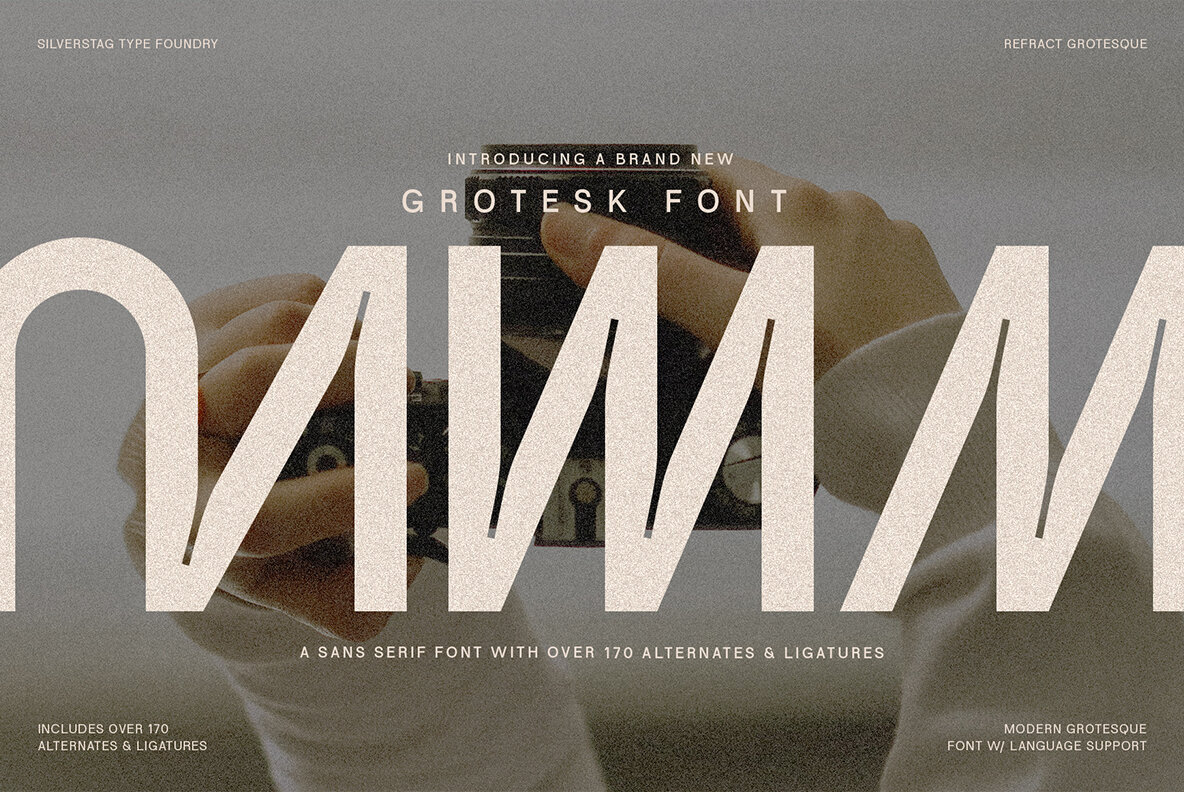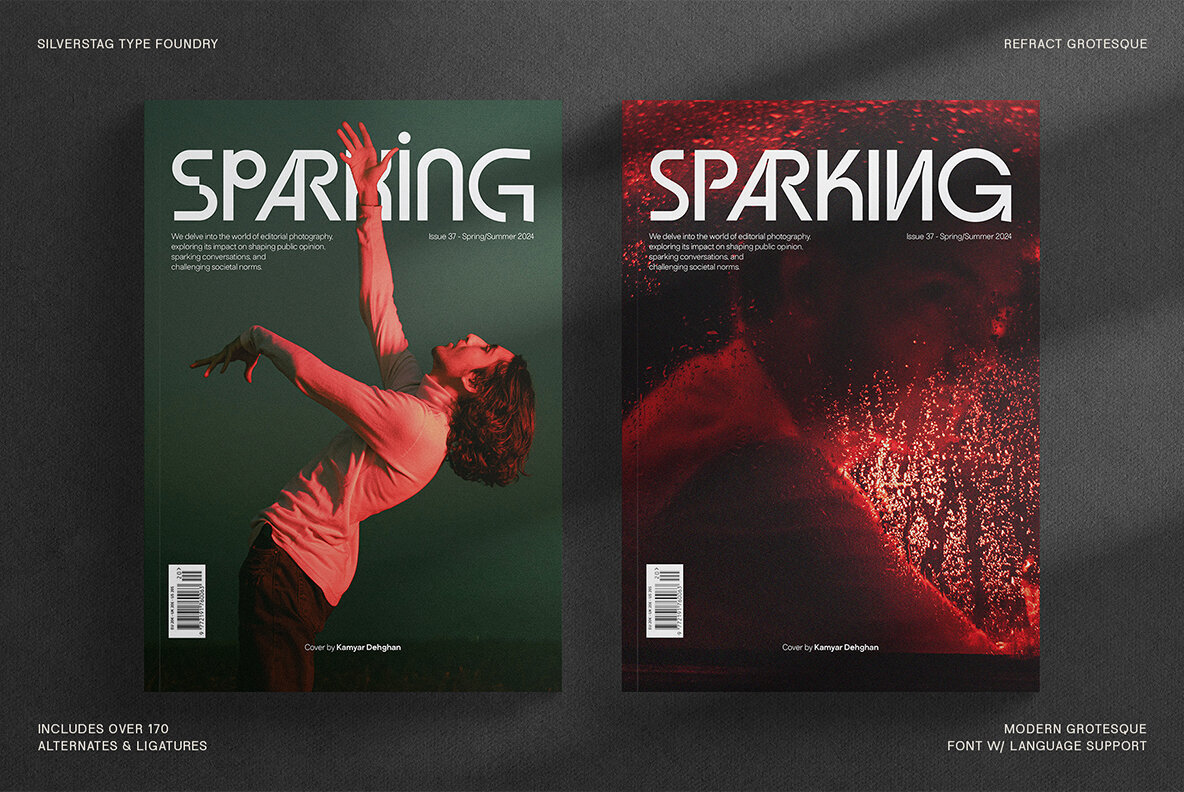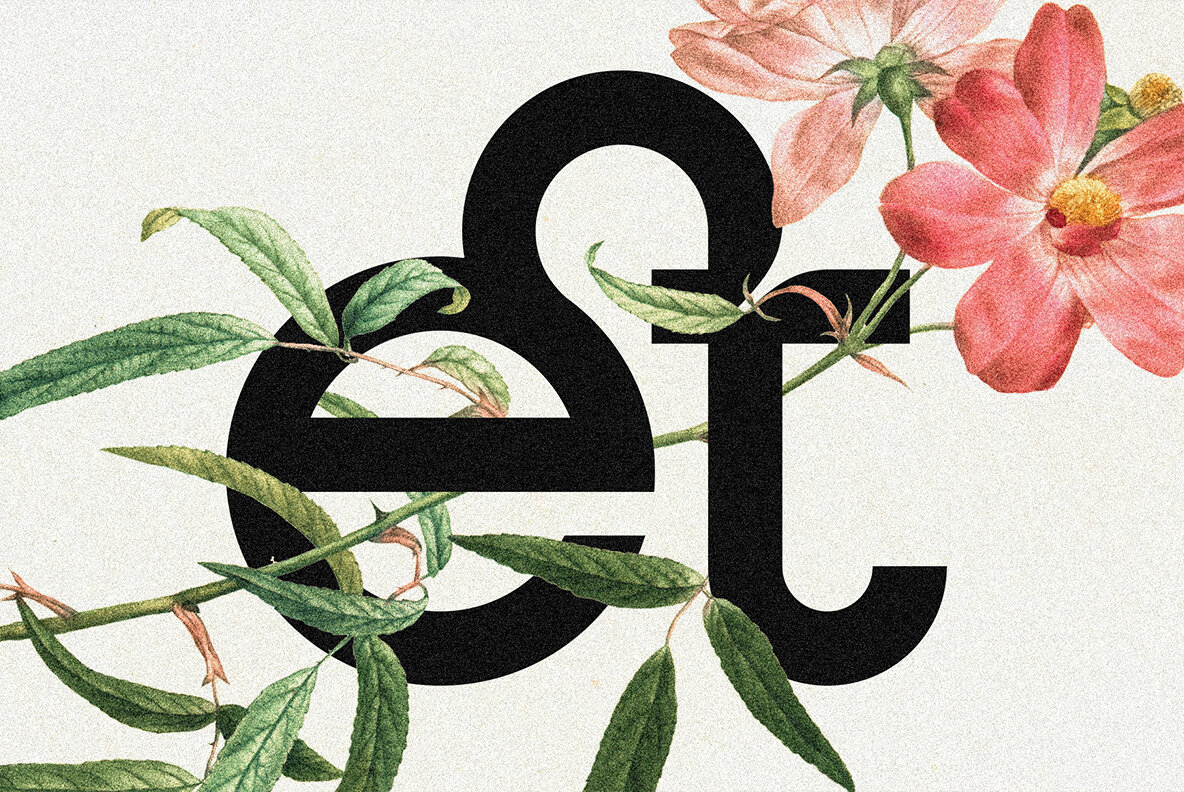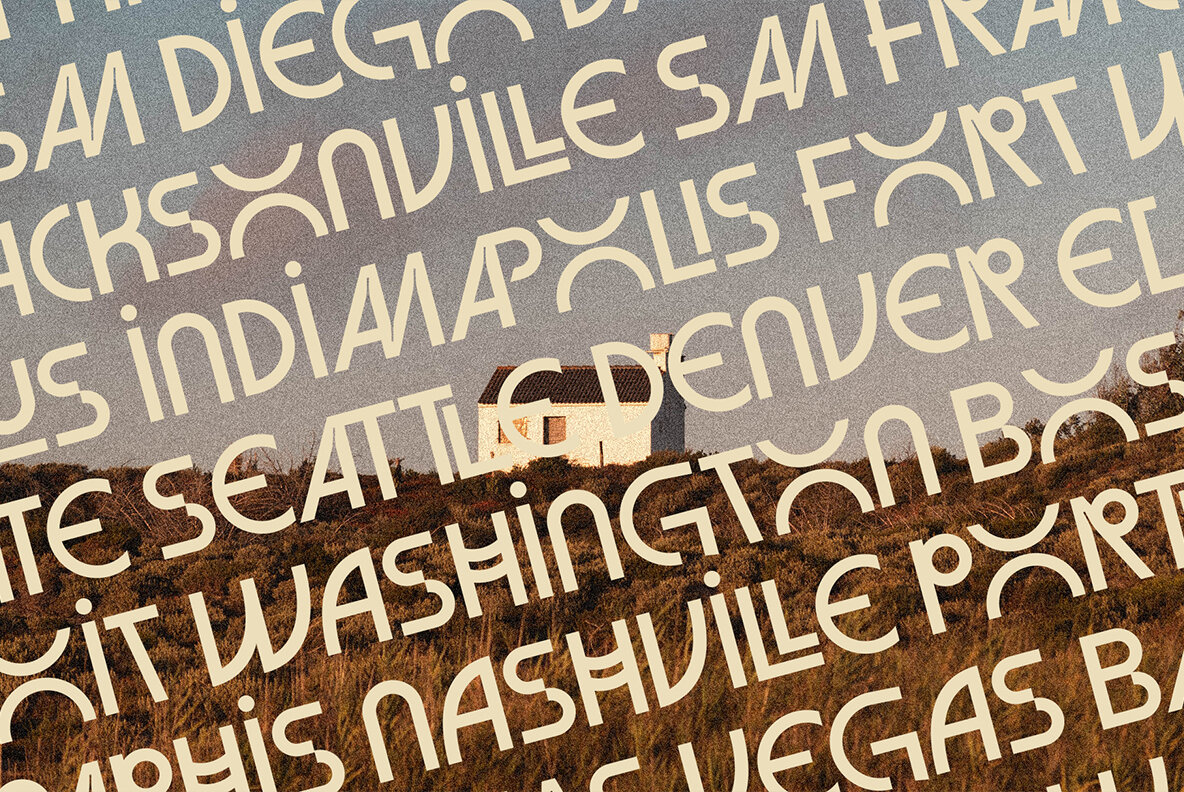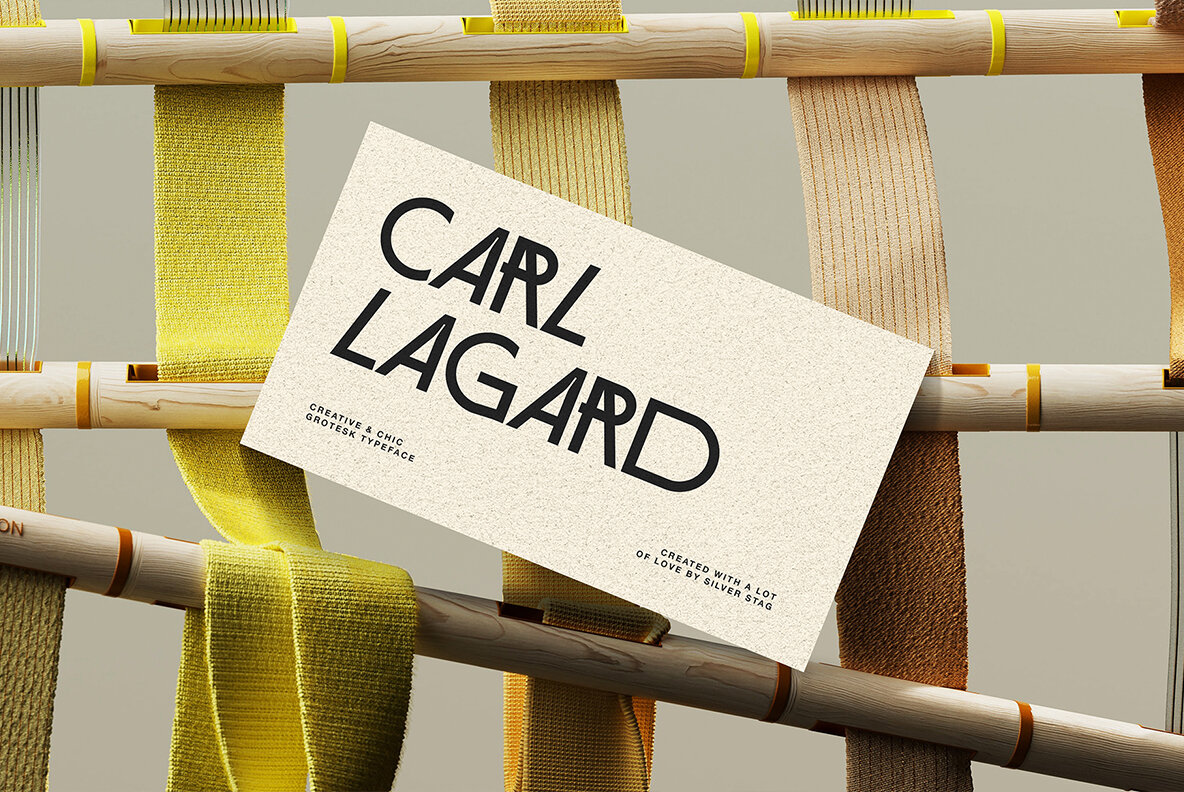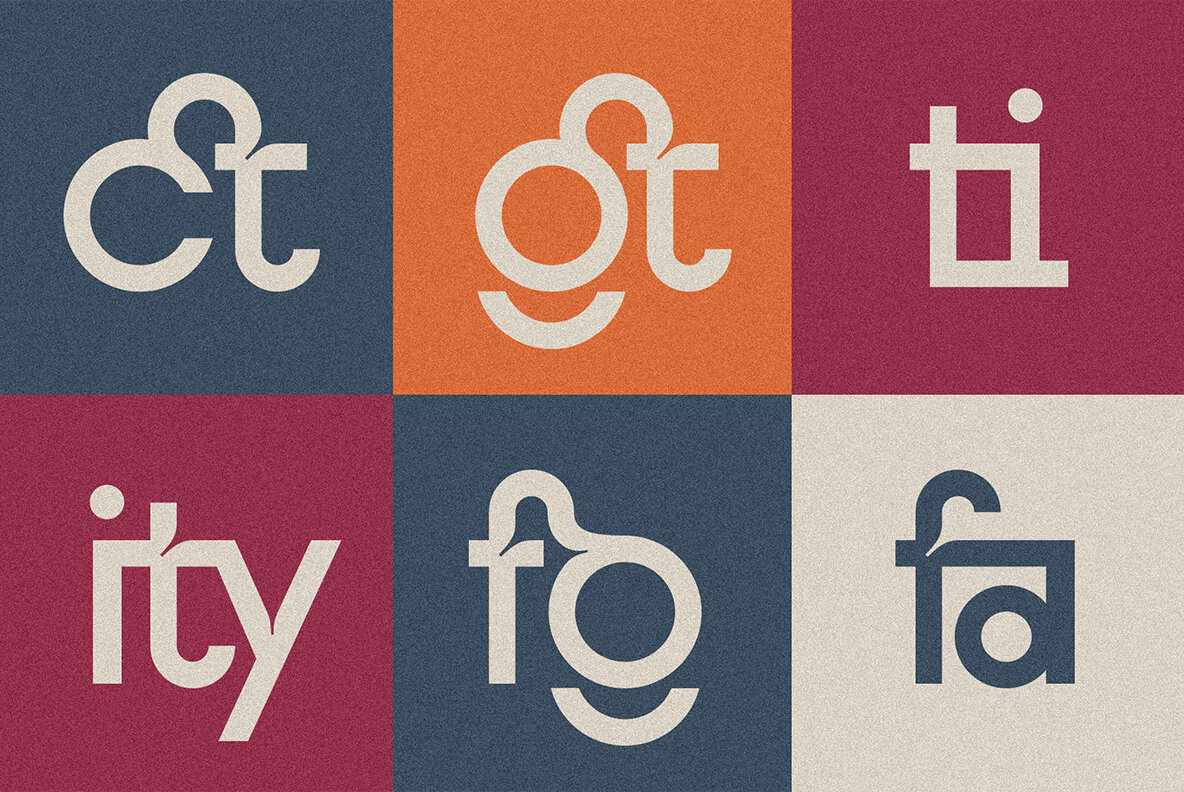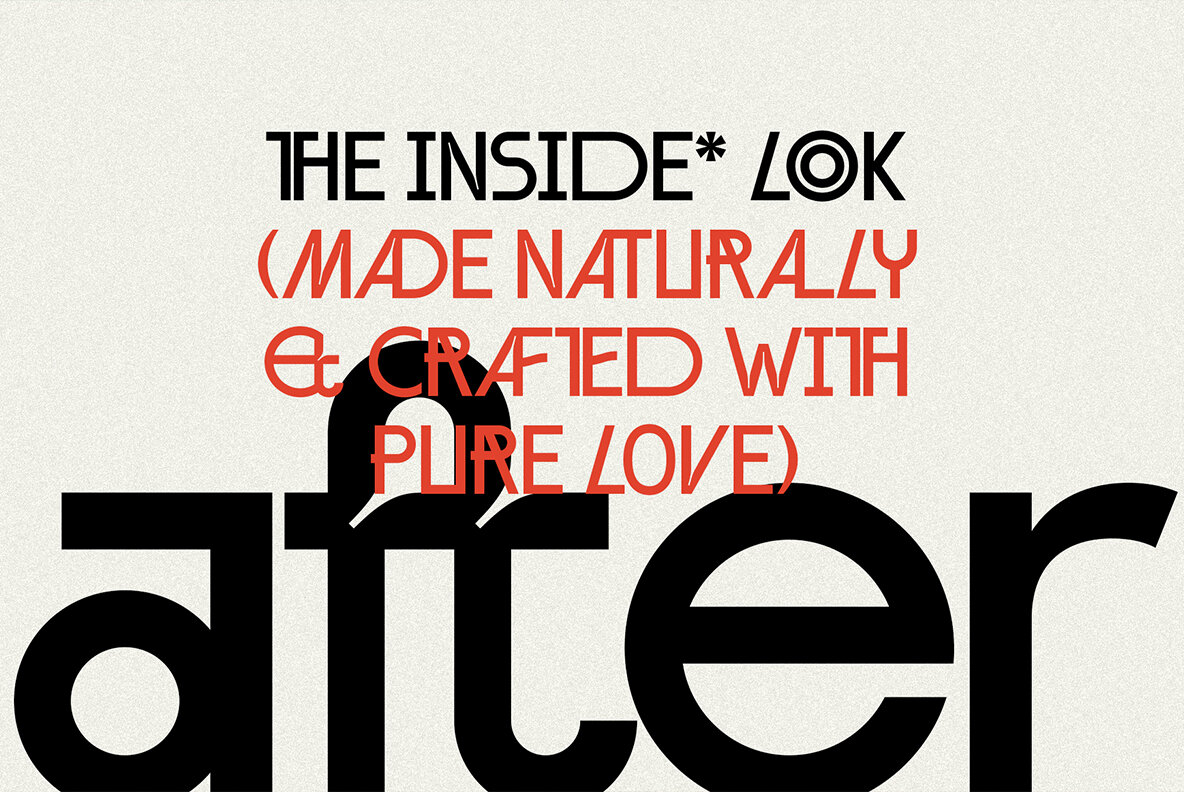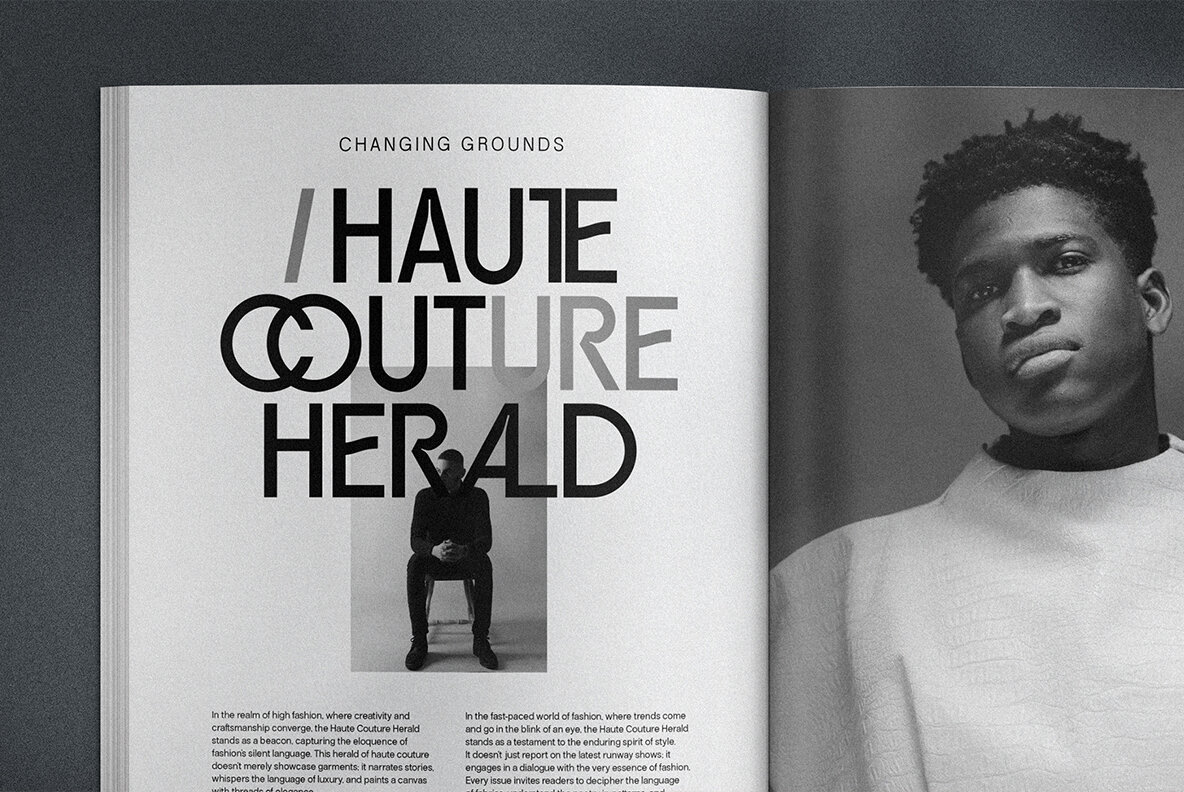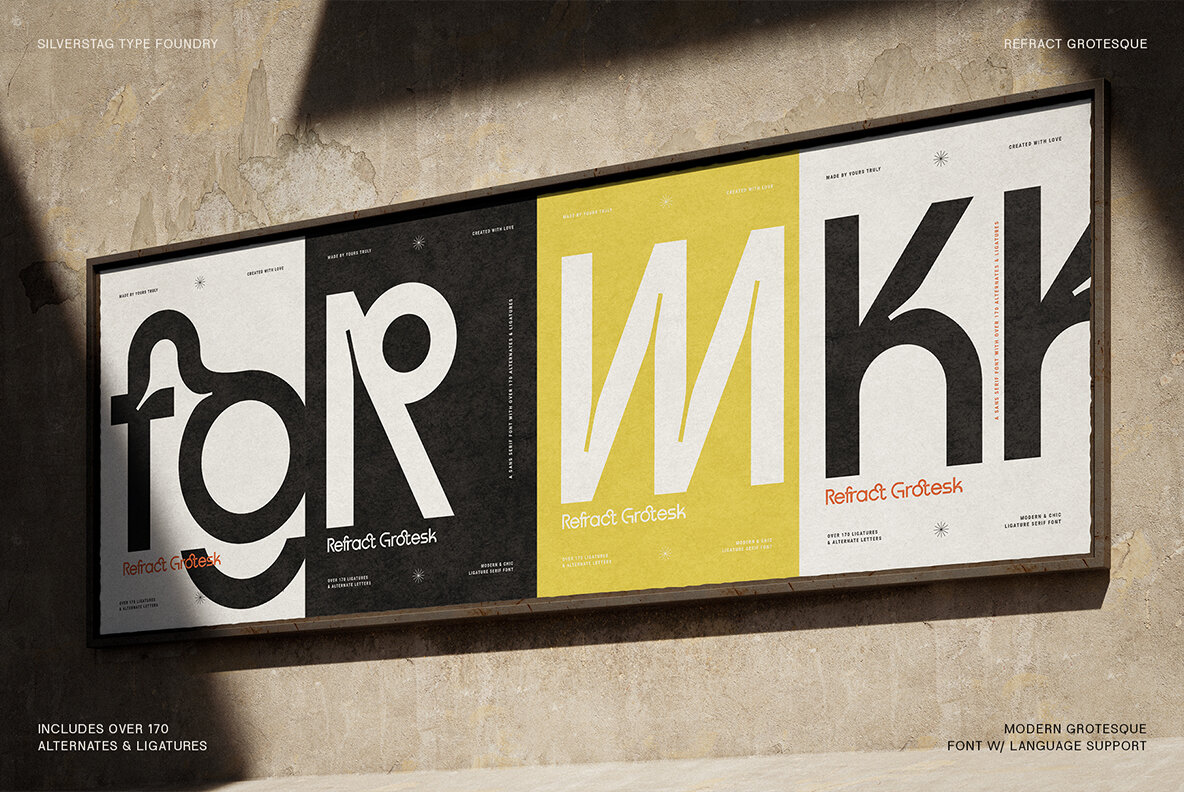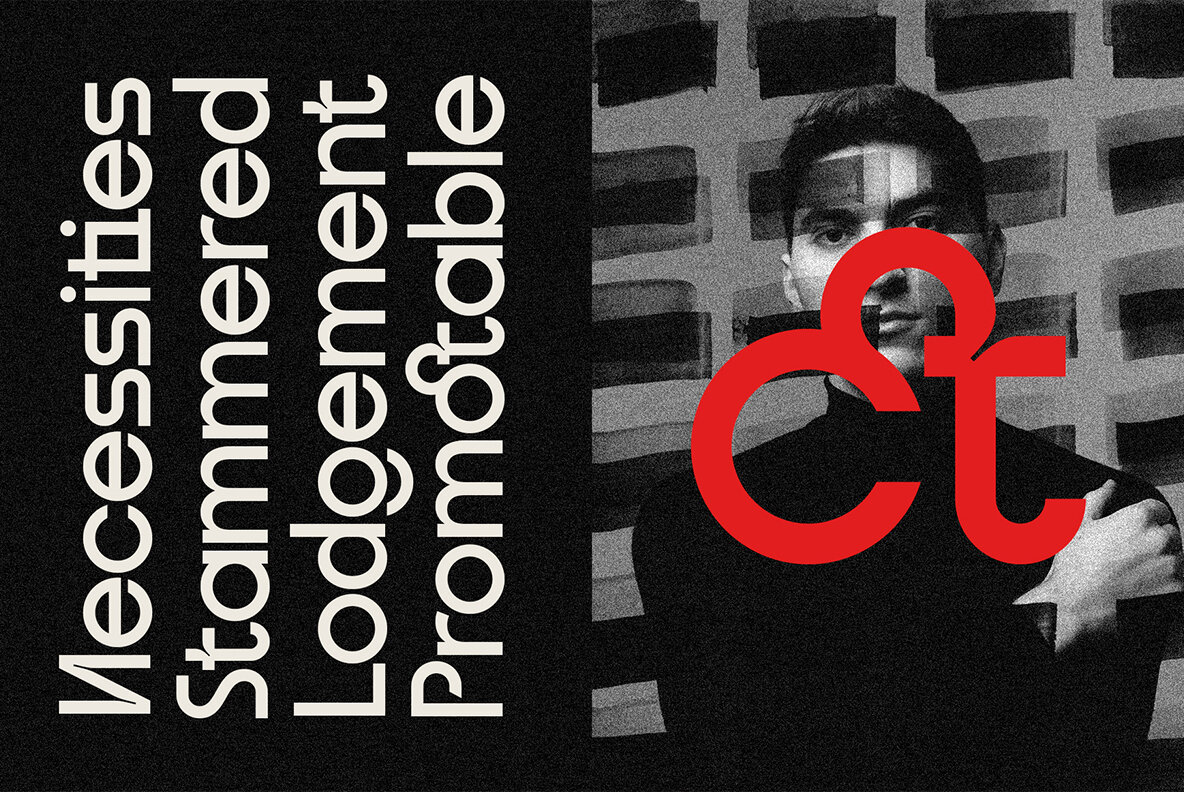
Refract Font
Refract Regular
Step into a world of geometric precision and visual brilliance with Refract, a captivating grotesk sans serif font that shatters the boundaries of conventional typography. Inspired by the mesmerizing beauty of light as it refracts through prisms, this font embodies a captivating blend of clarity, structure, and elegance. With over 170 alternates and ligatures, Refract offers a level of versatility that will ignite your creative flame. Its three sets of uppercase letters and two sets of lowercase letters provide a foundation for endless possibilities, while the intricate connections between letters add a touch of fluidity and artistry. Immerse yourself in the mesmerizing array of alternates that grace Refract's anatomy. These decorative elements offer a wealth of creative possibilities, allowing you to personalize your lettering and add a touch of individuality to your designs. With over 92 languages supported, Refract transcends linguistic barriers, making it a global ambassador for bold, modern typography. Whether you're crafting captivating headlines, designing sleek logos, or crafting captivating marketing materials, Refract will seamlessly complement your vision. Refract is a font that dares to challenge the status quo, defying expectations and captivating the imagination. Embrace its geometric charm and let Refract refract your designs into masterpieces of visual storytelling.